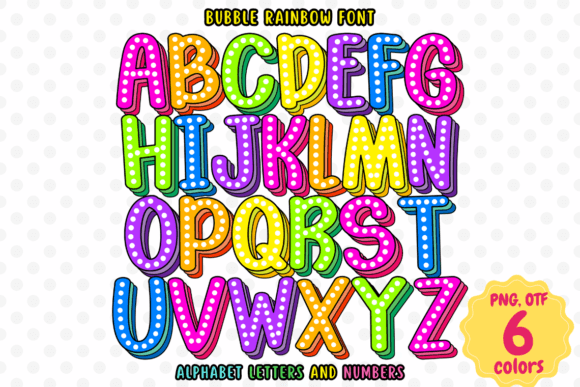
Discover the Whimsical World of Bubble Rainbow Font
Have you ever been working on a design project, and suddenly, it feels like something is missing? You’re not quite sure what it is, but you know it needs a bit more pizzazz. I recall a project where I was designing a children’s book, and I just couldn’t find the right font to match the playful tone of the story. That’s when I stumbled upon the delightful Bubble Rainbow Font. It’s a game-changer for anyone looking to add a touch of fun and creativity to their work.
A Personal Review of Bubble Rainbow Font
• ✨ Playful and Whimsical Design: The bubble letters infused with the colors of the rainbow are perfect for children’s books, party invitations, posters, greeting cards, and more.
• 💥 Brings a Burst of Color and Joy: The font’s vibrant colors and playful design make it ideal for projects that need a bit of whimsy.
The Story Behind Bubble Rainbow Font
The Bubble Rainbow Font was designed with one goal in mind: to bring a burst of color and joy to design projects. The designer, inspired by the magic of childhood and the beauty of rainbows, created a font that’s both playful and vibrant. With its unique bubble letter design and colorful rainbow hues, this font is sure to make any project stand out.
In conclusion, the Bubble Rainbow Font is a fantastic addition to any design project that needs a touch of whimsy and fun. With its playful bubble letters and vibrant rainbow colors, this font is sure to bring a burst of creativity and joy to your work. So why not give it a try and see how it can elevate your designs?